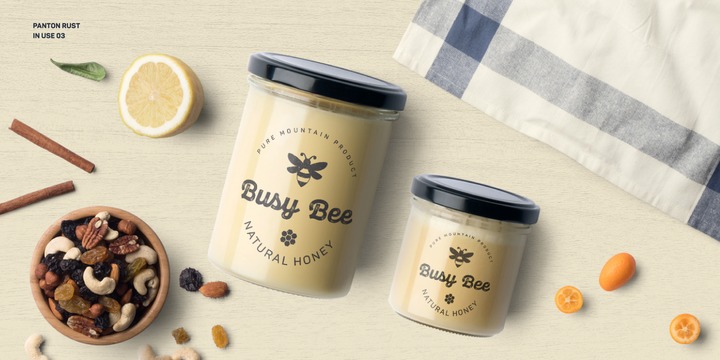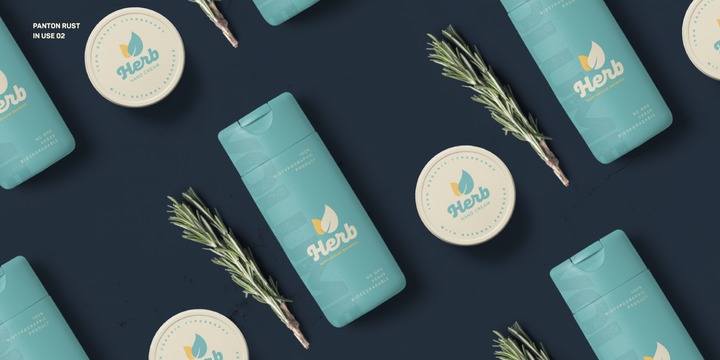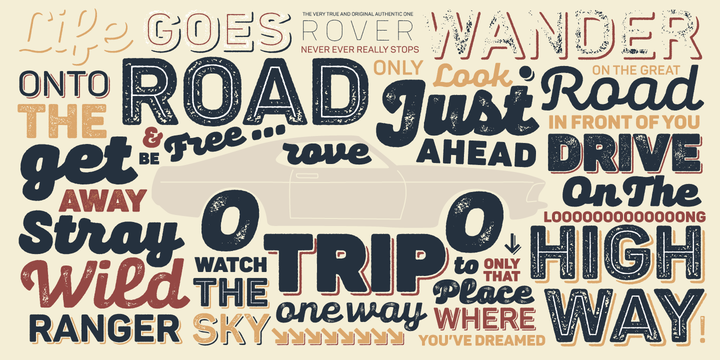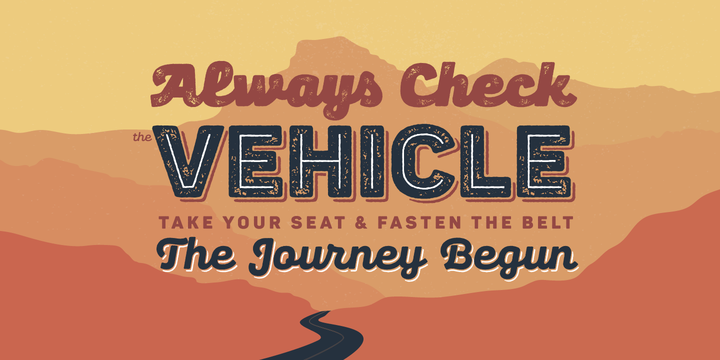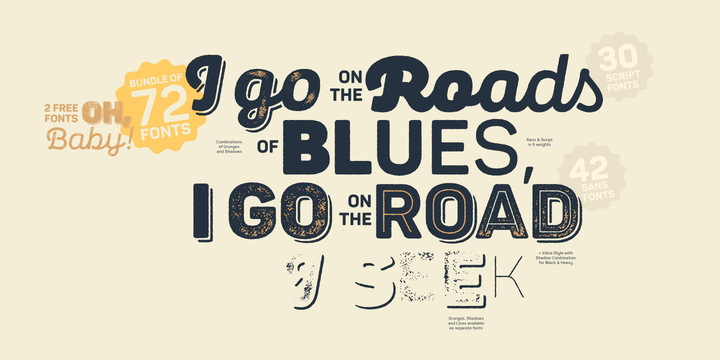
Panton Rust Script Family Pack (30 fonts)
All of the above is also a part of the accompanying Panton Rust Script, whose natural flow is further emphasized with specifically adjusted Contextual Alternates. The list of OpenType features wouldn’t be complete without localizations, figures, fractions, superiors and inferiors, numerators and denominators, as well as tabular numerals for Panton Rust.
The Rust Bundle includes Extended Latin and Cyrillic coverage, providing support for more than 130 languages. This handcrafted package was created to bring about authentic and original vintage type, making it especially suitable for any design that speaks of craftsmanship, a sublime human touch, and a mature signature with undeniable flavor.
In Rust we trust!
Features:
• Textures, Shadows and Inline versions of the fonts which can be combined for a multicolor effects;
• 72 styles in total, including 42 fonts for Panton Rust and 30 fonts for Panton Script Rust;
• 5 weights from SemiBold to Heavy;
• Extended Latin and Cyrillic coverage with support for more than 130 languages;
• A broad set of contextual alternates and ligatures for Panton Script Rust